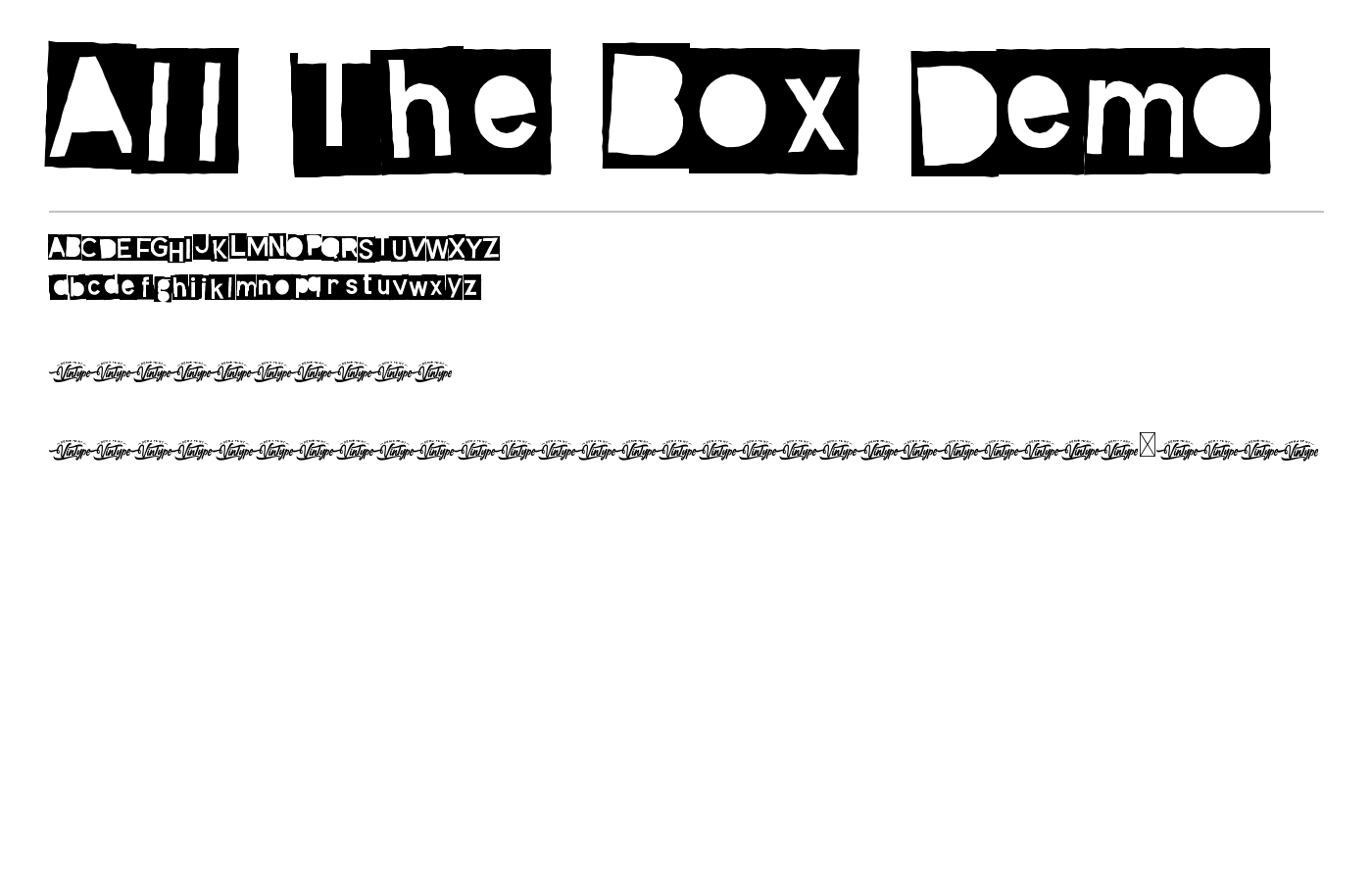
All The Box Demo is a bold, playful sans serif font characterized by its irregular, hand-drawn letterforms contained within rough square boxes, giving it a unique and whimsical style. Its distinctive, uneven shapes and strong contrast make it ideal for creative projects, fun branding, and eye-catching headlines where a quirky, informal vibe is desired. This font works best in display uses like posters and logos, providing a lively and artistic personality that stands out.
All The Box Demo Font
About All The Box Demo Font
| Font family | All The Box Demo Font |
| Designer | Widiyanti & Sarah SP |
| Trademark | VinType Studio ™ |